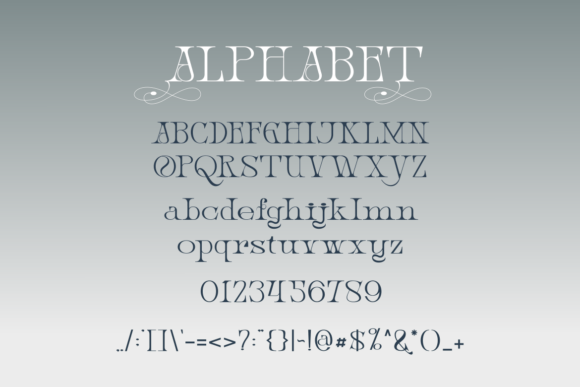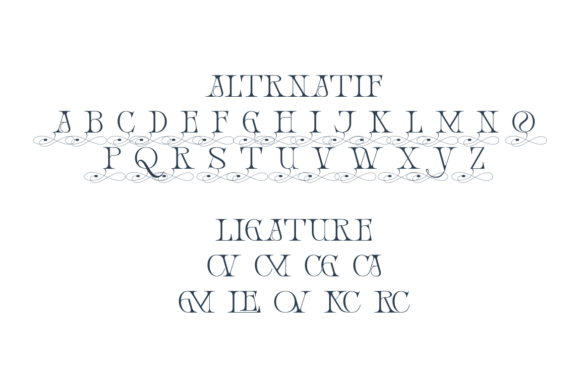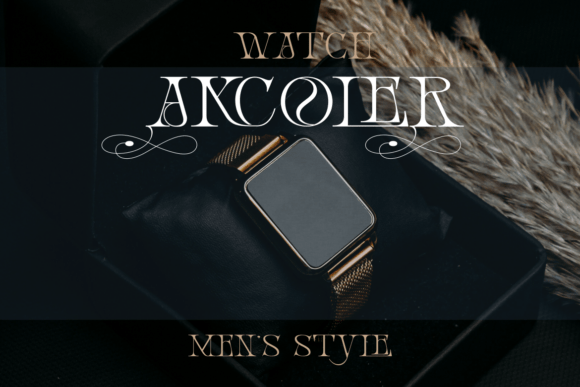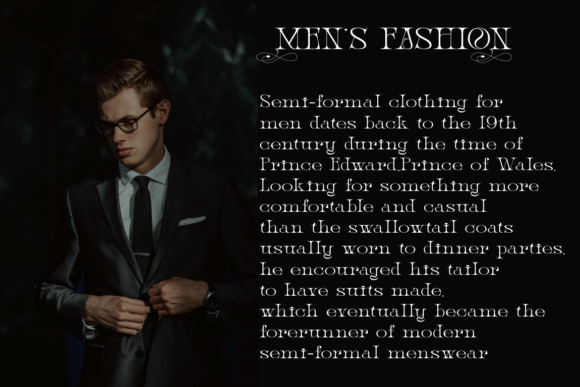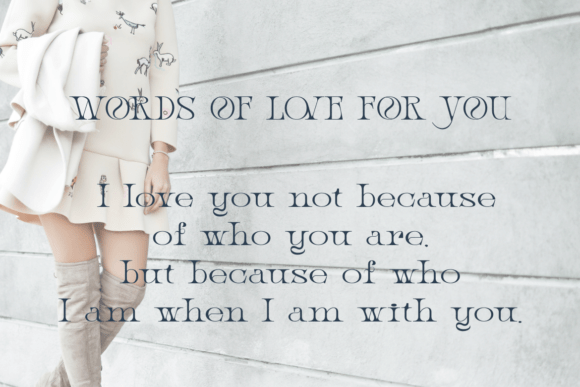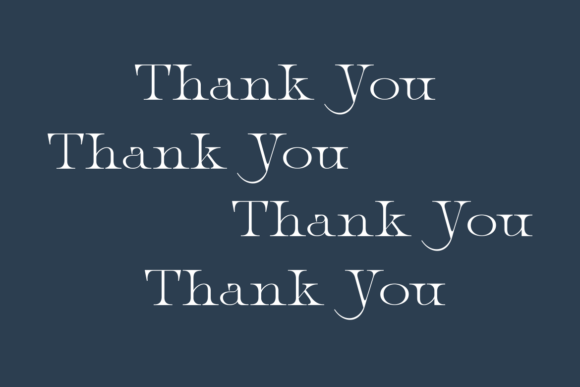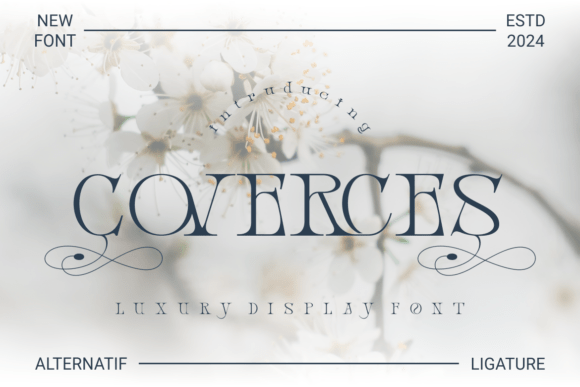
Introducing Coverces: The Luxury Display Font for High-End Designs
In the world of high fashion, luxury, and premium branding, typography plays a crucial role in conveying elegance and sophistication. For designers and crafters seeking to elevate their aesthetic to new heights, Coverces is the ultimate solution. This stunning luxury display font is designed to make a statement, boasting exquisite details that exude refinement and poise.
The Art of Elegance: Coverces Font Features
Coverces is characterized by its sleek, thin strokes that provide a sense of lightness and airiness, while sharp serifs add a touch of sophistication and luxury. The font’s artistic ligatures are carefully crafted to flow effortlessly between characters, creating a seamless and refined visual experience. This attention to detail makes Coverces perfect for high-end applications, including boutique packaging, upscale magazine layouts, and premium branding.
Crafted for the World of Luxury
Coverces is specifically designed for projects where elegance is paramount. Whether you’re working on a luxury fashion brand, a high-end jewelry campaign, or a bespoke packaging project, this font is sure to impress. Its sophisticated, “alternatif” look demands attention and sets it apart from more traditional typefaces. With Coverces, you can create designs that are both visually stunning and memorable.
Key Benefits for Designers and Crafters
- Elegant and Refined: Coverces adds a touch of luxury to any design, making it perfect for high-end applications.
- Versatile: Suitable for a wide range of projects, from boutique packaging to upscale magazine layouts.
- Attention-Grabbing: The font’s unique, artistic ligatures and sharp serifs make it a standout in the world of typography.
Applications for Coverces Font
Coverces is an incredibly versatile font, suitable for a wide range of applications. Some of the most popular uses for this luxury display font include:
- Luxury Fashion Brands: Elevate your fashion brand with a sophisticated, high-end typeface.
- Boutique Packaging: Create bespoke packaging that reflects the luxury and elegance of your brand.
- Upscale Magazine Layouts: Add a touch of refinement to your magazine layouts with Coverces’ elegant, high-end typography.
- Premium Branding: Establish your brand as a leader in luxury with a sophisticated, attention-grabbing typeface.
In the world of luxury design, typography plays a crucial role in conveying elegance and sophistication. With Coverces, designers and crafters have access to a stunning luxury display font that is sure to elevate their aesthetic to new heights. Its exquisite details, sleek strokes, and artistic ligatures make it the perfect choice for high-end applications. Whether you’re working on a luxury fashion brand, boutique packaging, or upscale magazine layouts, Coverces is the definitive choice for projects where elegance is the only option.